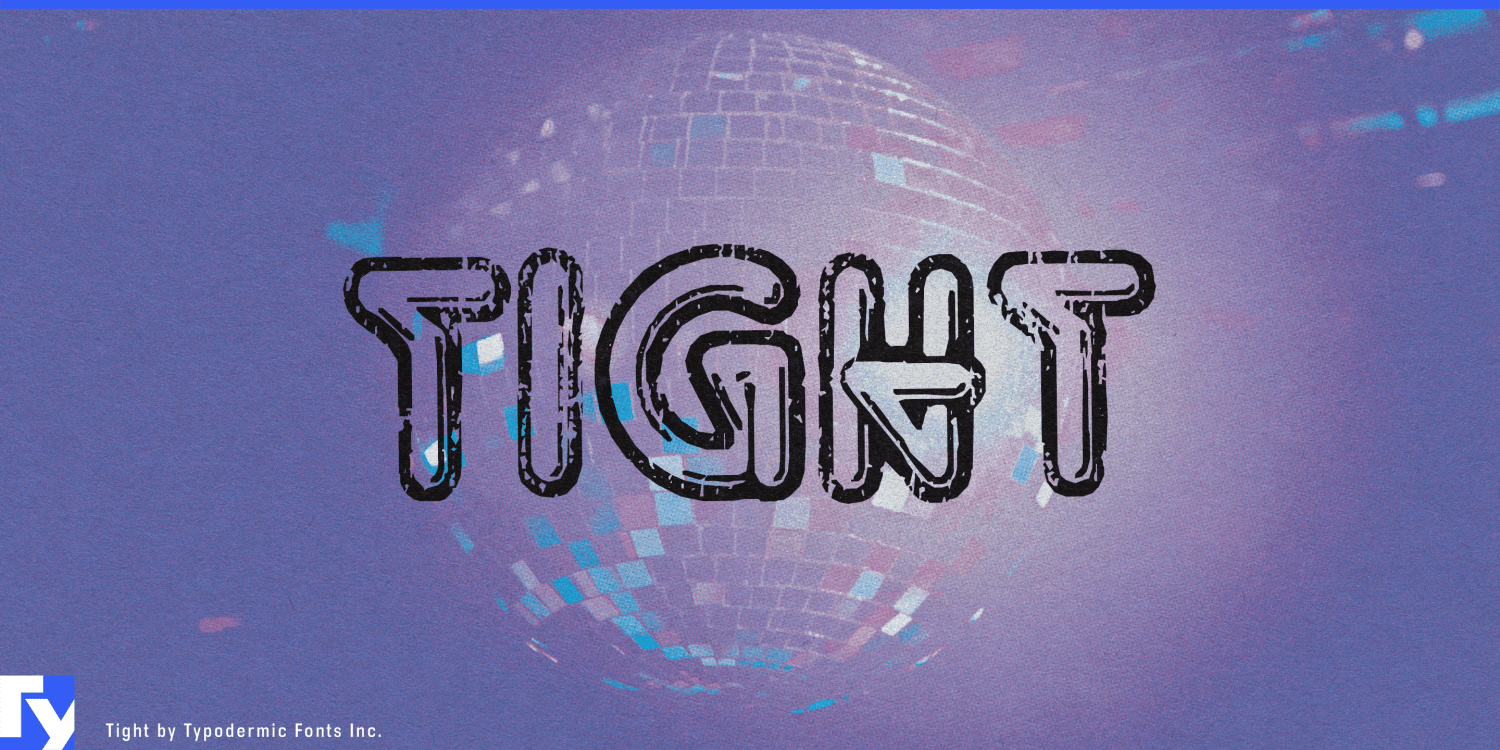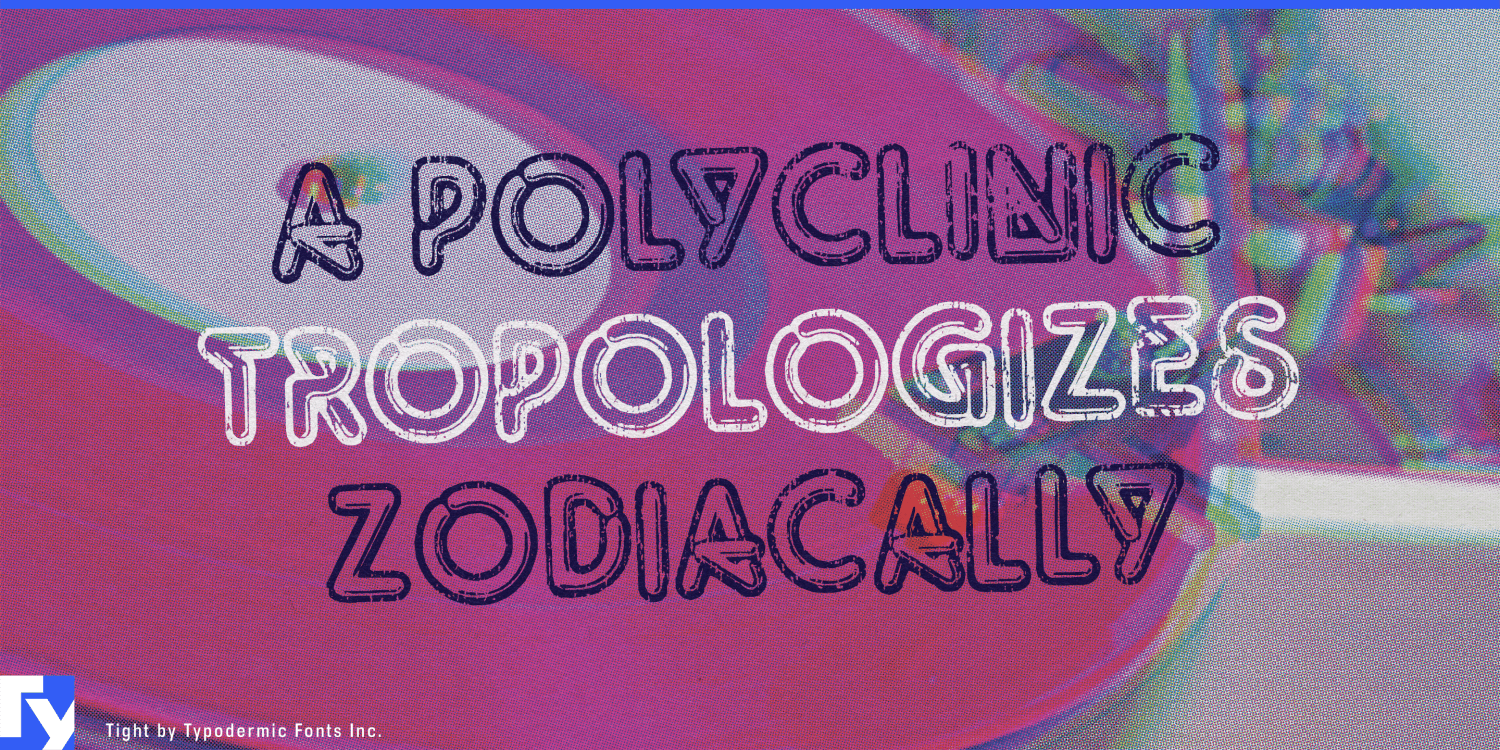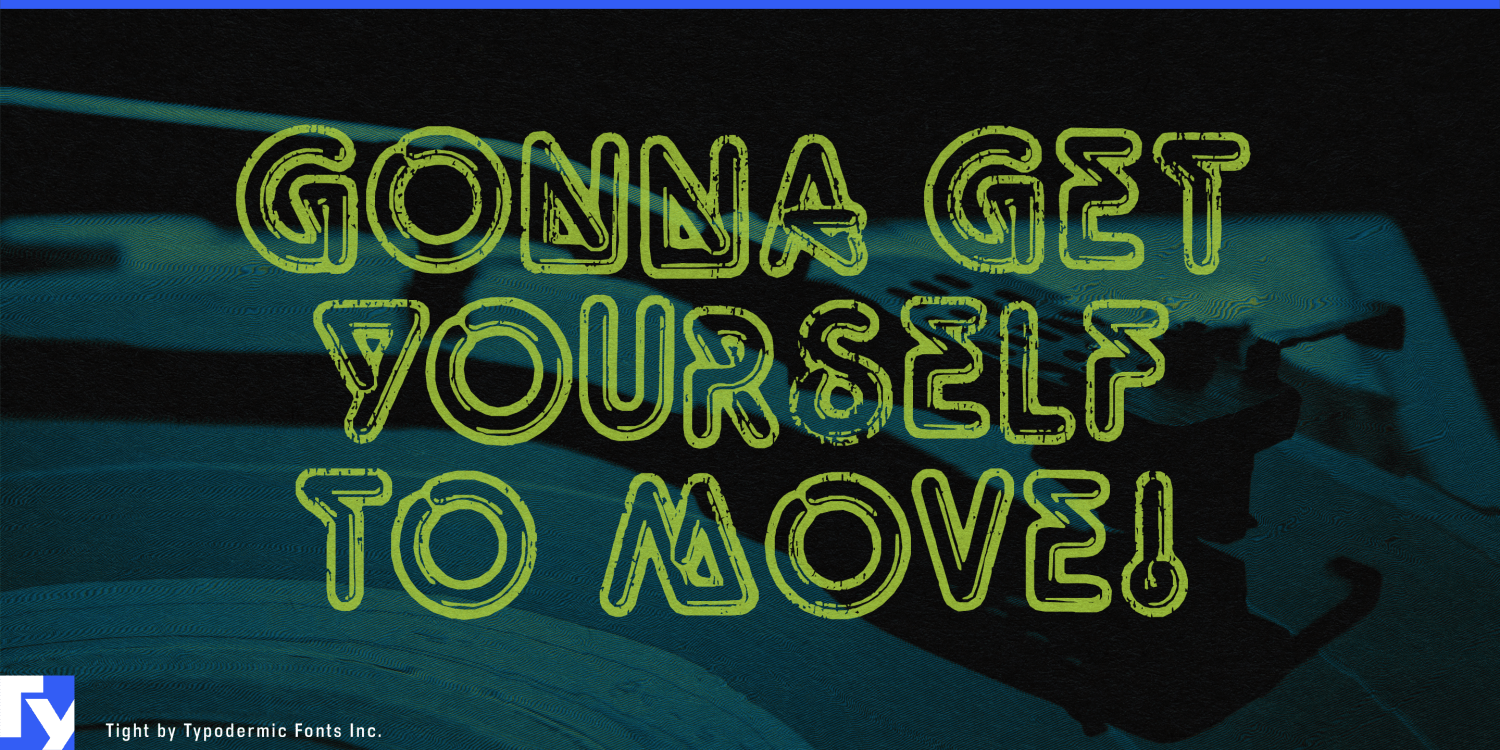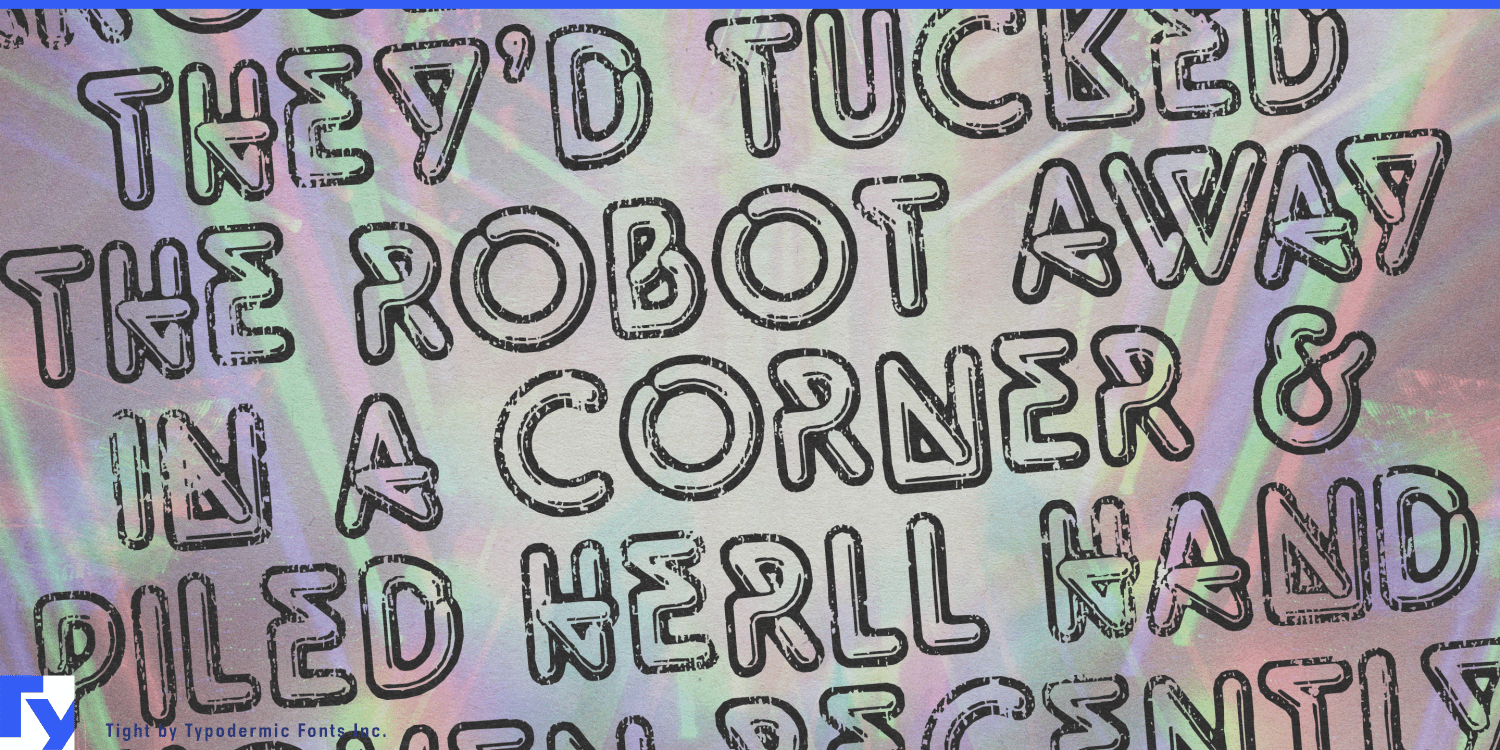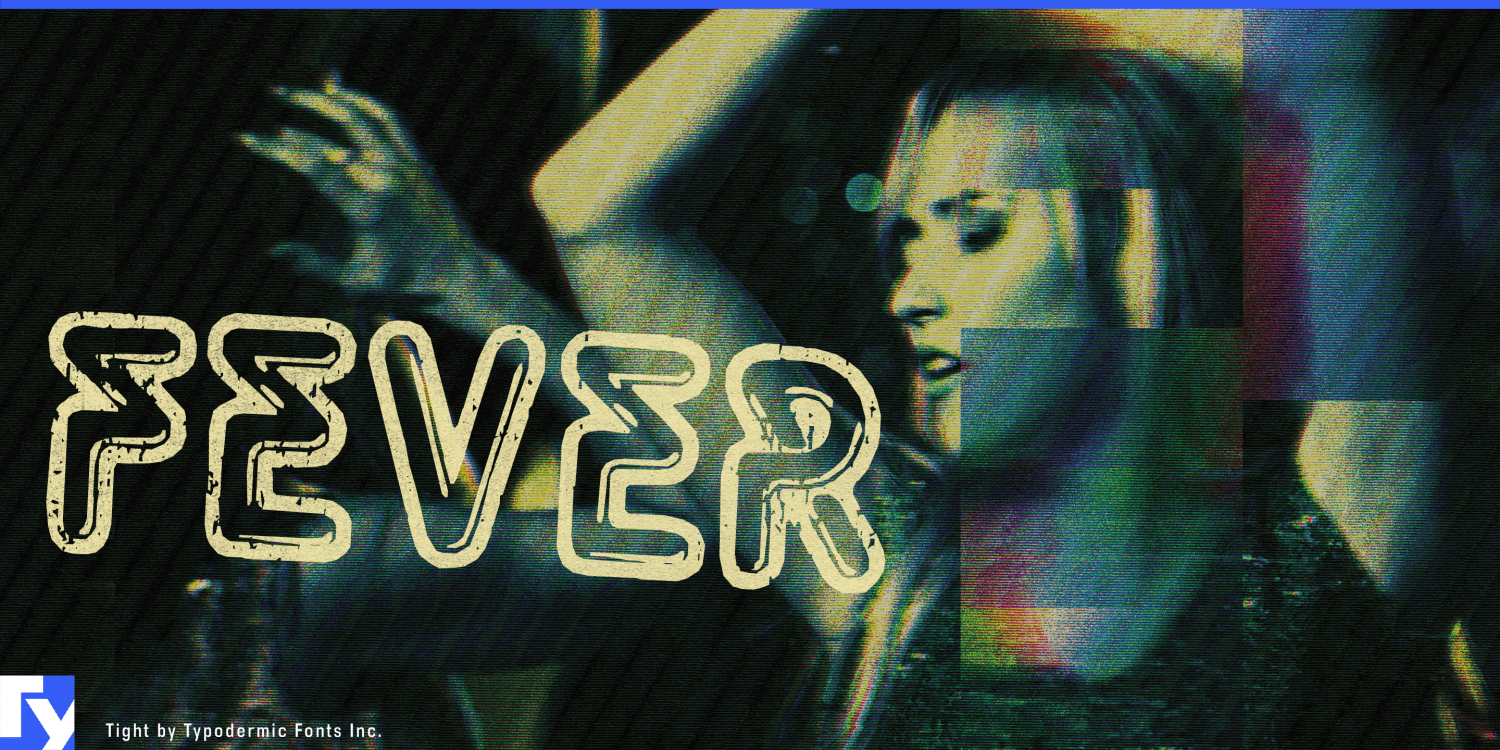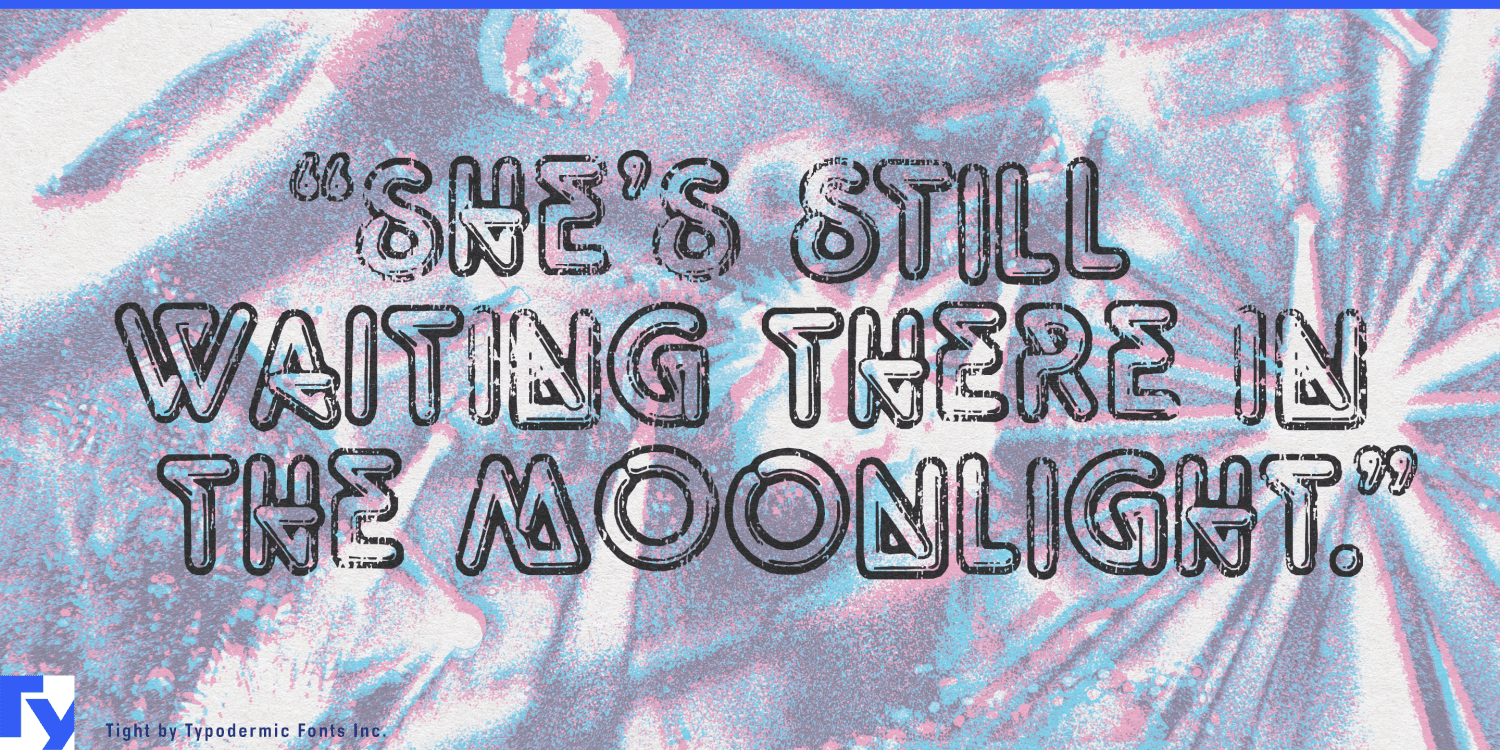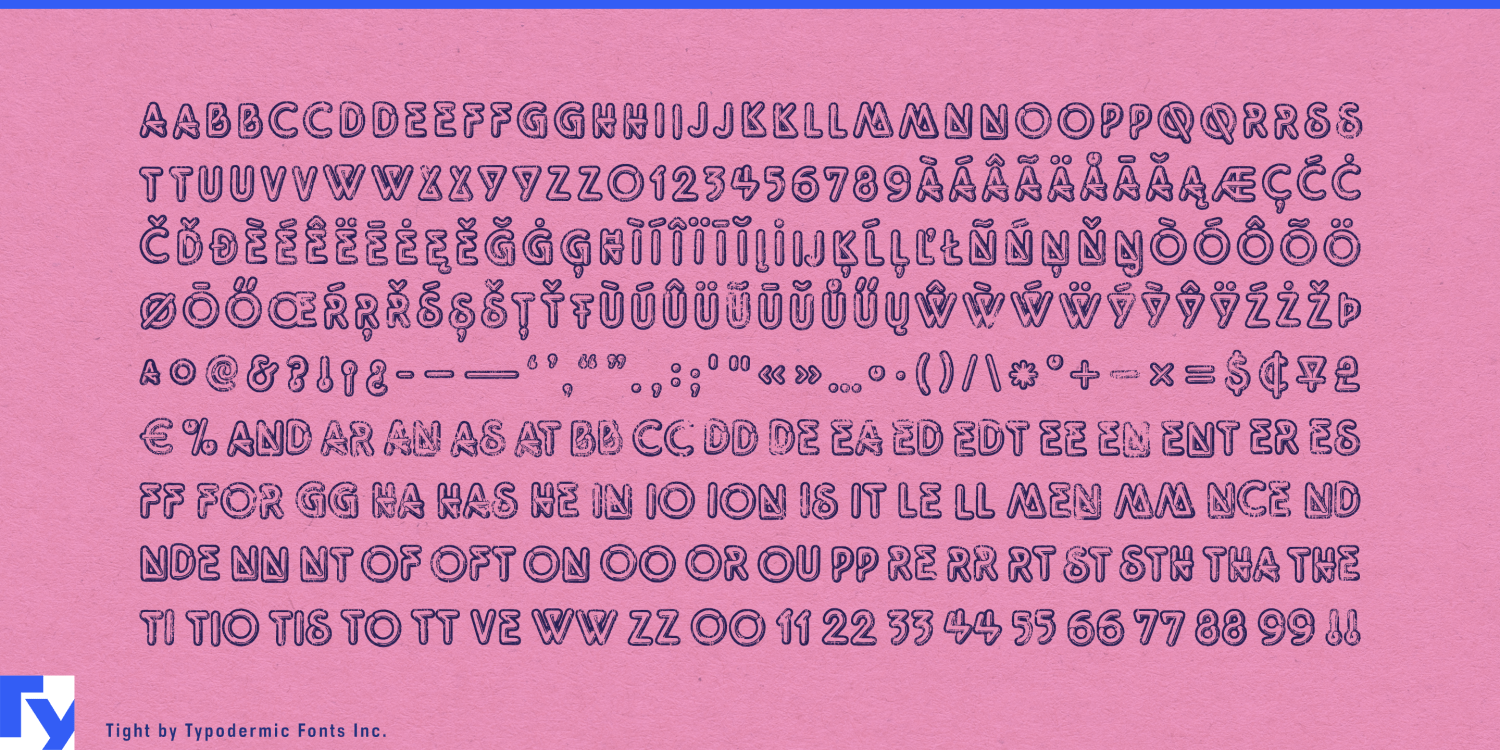
Tight
Font Family by Typodermic
A clean retro typeface is easy to make look old. Making it look as though it was actually screen-printed on a T-shirt, washed dozens of times and rediscovered years later is a different problem. Tight was built around that surviving-object look: broken ink, worn edges, uneven coverage and repeated letters that avoid the mechanical sameness of freshly typeset digital lettering.
The underlying forms come from Dean Morris’s 1976 Quicksilver, created for Letraset. Tight is a heavily distressed interpretation of that design, developed specifically to reproduce the appearance of worn screen-printed shirts rather than the pristine transfer lettering of the original.
That makes vintage apparel its natural territory. Concert shirts, roller-rink tees, disco-event merchandise, retro sports-club shirts, resort souvenirs and thrift-store-inspired streetwear can use Tight when the lettering needs to feel printed and lived in. It also suits fictional tour shirts and invented local-business merchandise designed to look as though somebody pulled them from a box marked 1978.
Although Quicksilver was not originally conceived as neon lettering, its tubular construction has long invited that association. Tight keeps that visual connection while making it battered and physical. Nightclub graphics, roller-disco promotions, bar events, retro motel imagery and illuminated storefront themes can borrow the shape of bent light tubes without looking like pristine digital neon.
Archival dance releases, disco compilations, record-store events and anniversary merchandise can use Tight for titles that resemble surviving promotional material rather than newly manufactured nostalgia. Film, television and theatrical wardrobe can draw on the same quality for fictional band shirts, bowling-league tees, summer-camp souvenirs and nightclub uniforms.
Tight is at its strongest when a new graphic needs evidence of a past life: tubular seventies lettering, cracked screen-printing and enough irregularity to make the finished piece feel worn rather than merely distressed.